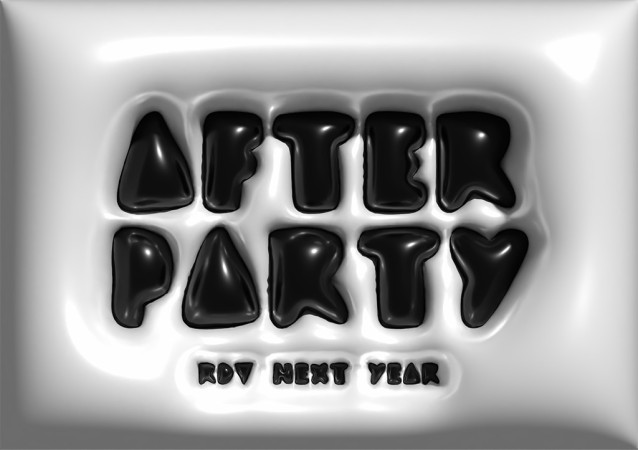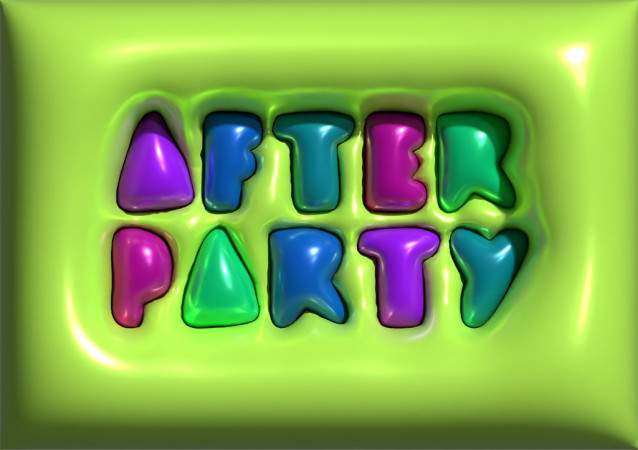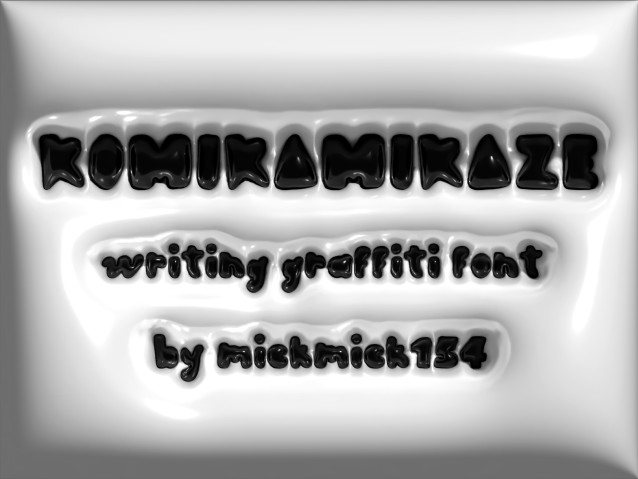
Komikamikaze Font
Komikamikaze Font is a font which revisits typography through graffiti, to question the relationship between different worlds which are inspired by each.
This typo allow to design with fresh bolded characters. Maj cap give you a strong message while lower caps come with a handwrited smooth style. She’s also ideal for a bubble effect and have been designed this way.